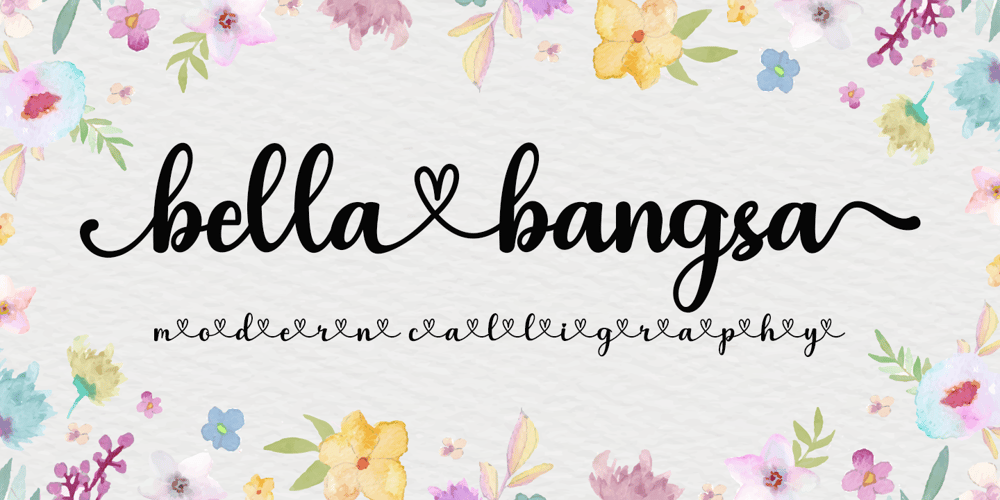
Bella Bangsa Font Family was designed by Arief Tri Sulistiyono and published by Supersemarletter. Bella Bangsa contains 1 styles and family package options. Bella Bangsa feels equally charming and graceful. It looks ravishing on wedding invitations, thank you cards, quotes, greeting cards, logos, business cards and every other design which needs a customized touch. This font is PUA encoded which means you can access all of the glyphs and swashes with ease! Honestly it works perfectly for headlines, logos, posters, packaging, T-shirts and much more.Font Features :• Regular version• Character set A-Z in uppercase and lowercase• Ligatures in Lowercase and special• Alternates option• Numerals & Punctuation• Accented Characters• Multiple Languages SupportedRecommended to use in Adobe Illustrator or Adobe Photoshop with opentype feature.If you have questions, just send me a message and I’m glad to help.Best Regards,Supersemar Letter